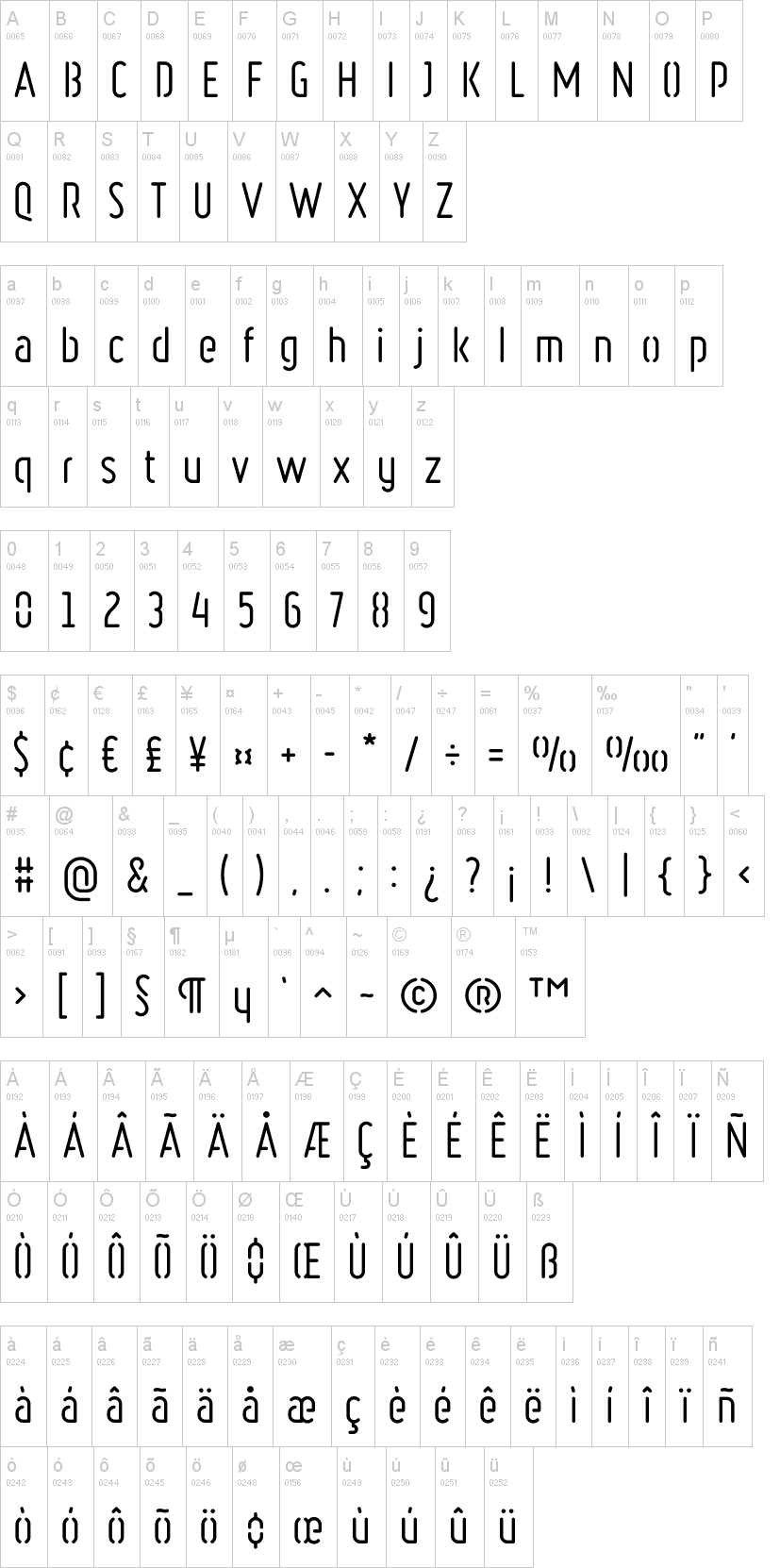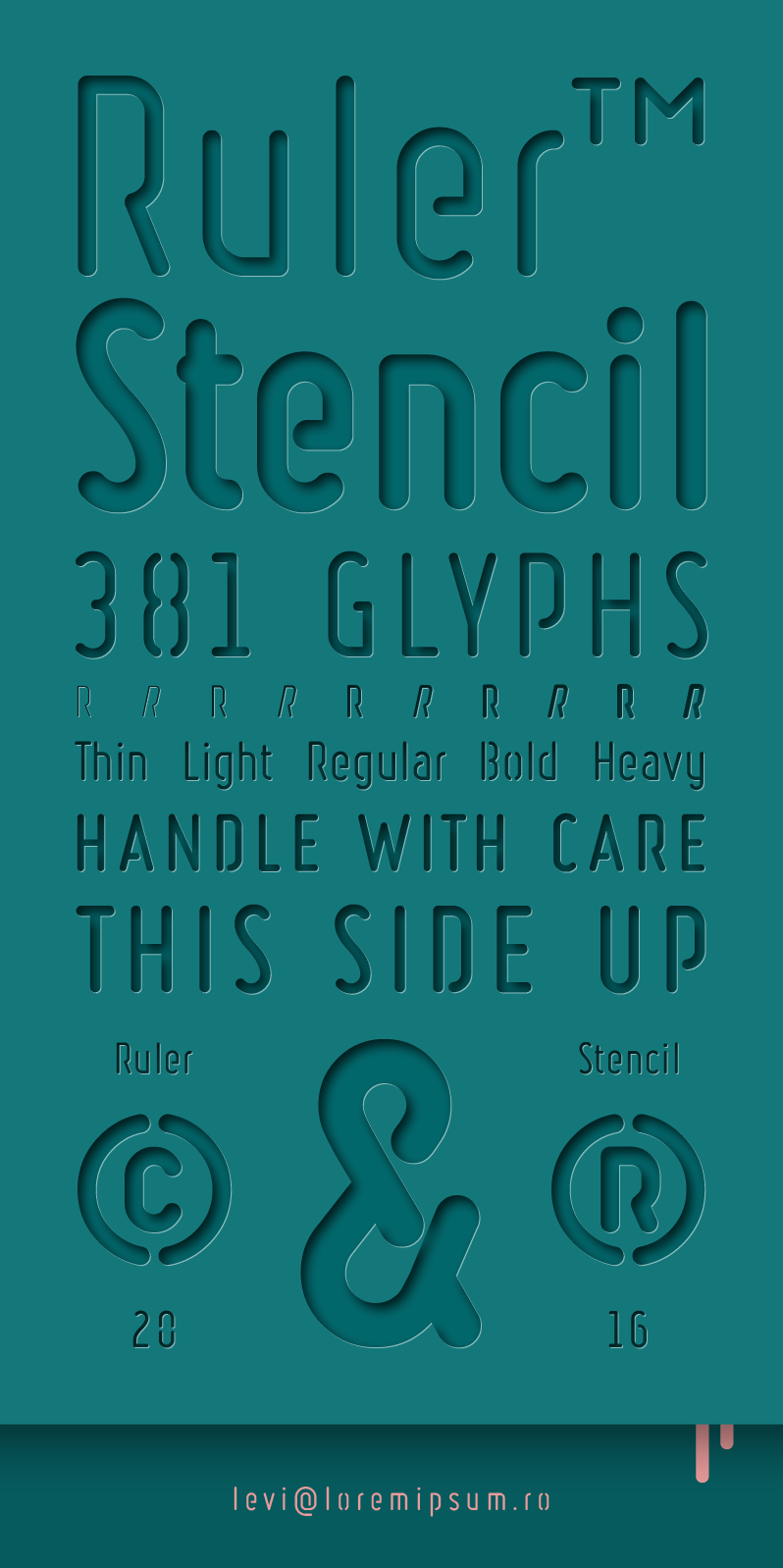
Ruler Stencil Light.ttfRuler Stencil Regular.ttfRuler Stencil Bold.ttfRuler Stencil Heavy.ttfRuler Stencil Thin Italic.ttfRuler Stencil Light Italic.ttfRuler Stencil Bold Italic.ttfRuler Stencil Heavy Italic.ttfNote of the authorRuler Stencil is a development of the basic Ruler font to create a simulation of the stencil rulers used to draw predefined fonts, usually on blueprints.